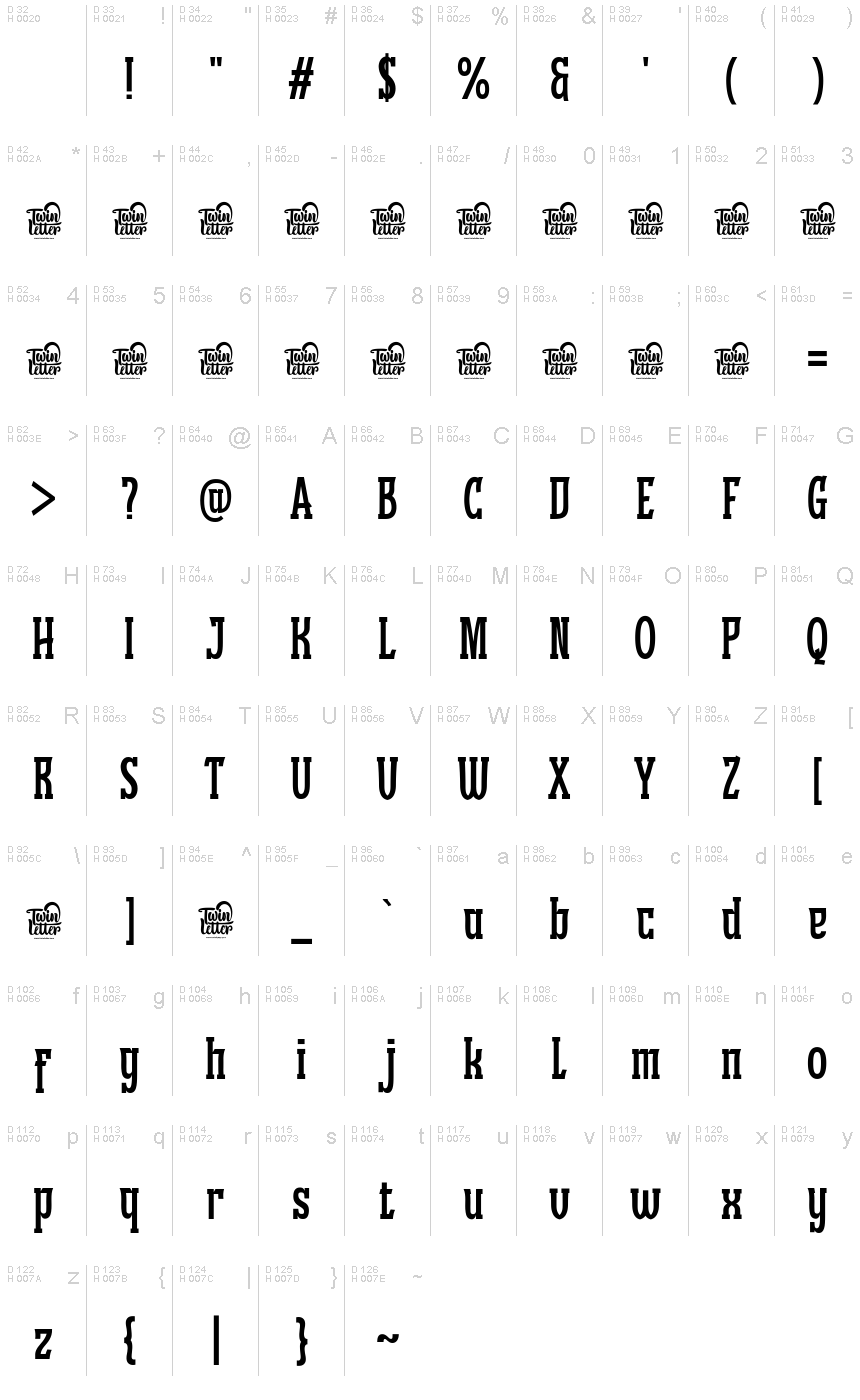
Mashok, a captivating display font crafted by Twinletter, captivates with its striking, condensed silhouette. This typographic gem exudes a bold, authoritative presence, its robust letterforms commanding attention. The font's unapologetic aesthetic evokes a sense of strength and unwavering confidence, making it a standout choice for impactful branding, headlines, and editorial design.
Mashok's versatility shines through, seamlessly adapting to diverse applications. Its condensed nature lends itself well to space-constrained layouts, while its powerful personality lends a sense of dynamism to logos, posters, and packaging. Whether setting the tone for a modern fashion label or amplifying the impact of a high-stakes corporate report, Mashok's versatility ensures it remains a go-to choice for designers seeking to make a lasting impression.